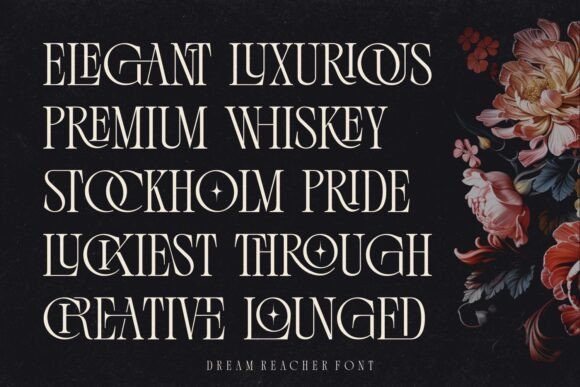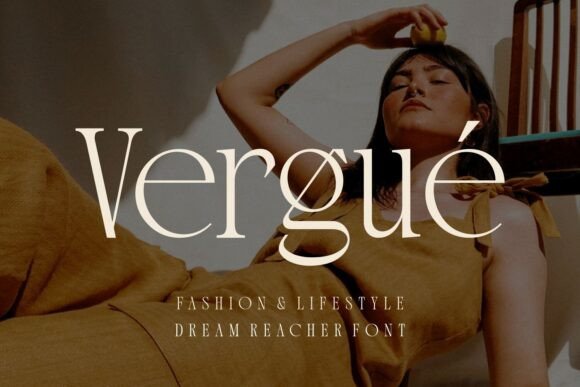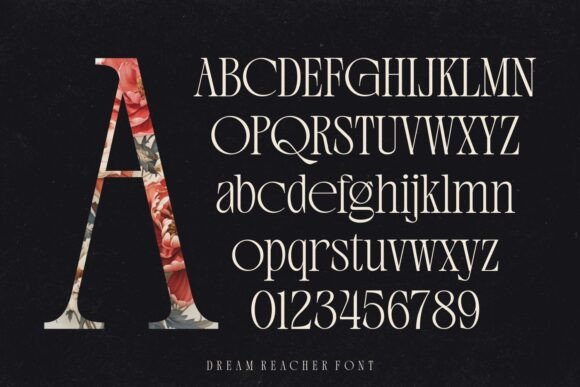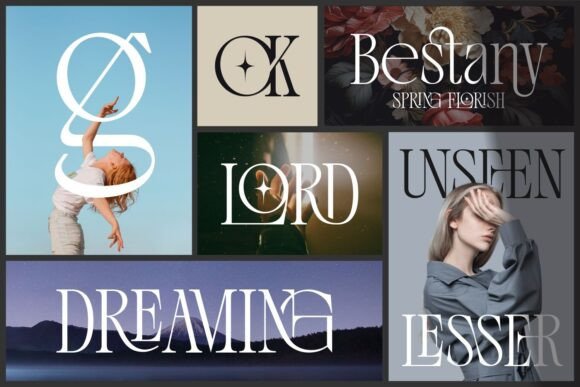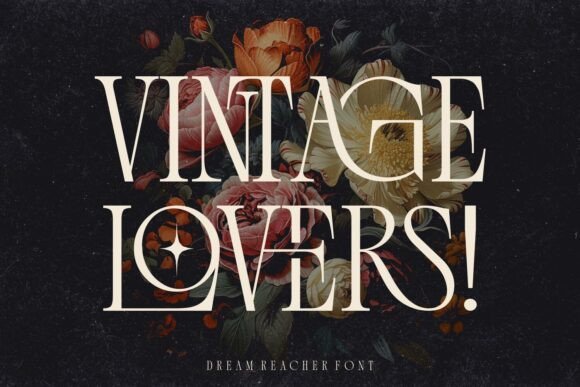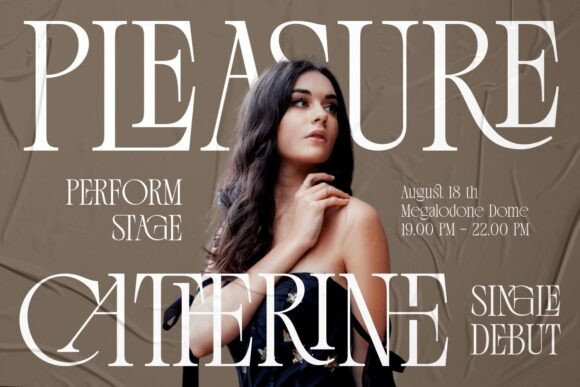
Dream Reacher Font: Elevate Your Designs with Elegance and Creativity
In the world of typography, fonts play a crucial role in conveying messages, expressing emotions, and creating visual identities. For designers and crafters, finding the perfect font that combines style, elegance, and uniqueness can be a daunting task. However, if you’re looking for a typeface that embodies creativity, sophistication, and harmony, look no further than the Dream Reacher Font. In this article, we’ll explore the features, benefits, and uses of this stunning font, and why it’s a must-have for any designer or crafter.
What is Dream Reacher Font?
Dream Reacher is a creative, stylish ligature serif font that has taken the design world by storm. Each letter is beautifully crafted with an elegant look that attracts a tall, minimalist, and slender shape. This font combines the elegance of a serif with a unique and decorative binding, creating a more harmonious and visually appealing look. The result is a typeface that exudes sophistication, creativity, and refinement.
Key Features of Dream Reacher Font
Dream Reacher Font boasts several key features that make it a standout in the world of typography. Some of its notable features include:
- Ligature Serif Font: Dream Reacher features a beautiful ligature serif design, which creates a unique and decorative binding between letters.
- Elegant and Slender Shape: Each letter is crafted with a tall, minimalist, and slender shape, giving it an elegant and refined look.
- Alternate and Ligature Features: This font comes with alternate and ligature features, allowing designers to create unique and creative combinations of letters.
- Perfect for Creative Designs: Dream Reacher Font is perfect for use in creative and artistic designs, such as logos, branding, headlines, titles, invitations, posters, and more.
Benefits of Using Dream Reacher Font
So, why should designers and crafters choose Dream Reacher Font for their projects? Here are some benefits of using this stunning font:
- Adds Elegance and Sophistication: Dream Reacher Font adds a touch of elegance and sophistication to any design, making it perfect for high-end branding and creative projects.
- Unique and Eye-Catching: The ligature serif design and alternate features of this font make it unique and eye-catching, grabbing the attention of viewers and leaving a lasting impression.
- Versatile and Flexible: Dream Reacher Font can be used in a variety of design projects, from logos and branding to headlines, titles, and more.
- Easy to Read and Understand: Despite its creative and decorative design, Dream Reacher Font is easy to read and understand, making it perfect for use in body text and other written content.
Use Cases for Dream Reacher Font
Dream Reacher Font is a versatile typeface that can be used in a wide range of design projects. Here are some use cases where this font shines:
- Logo Design: Use Dream Reacher Font to create stunning logos that exude elegance and sophistication.
- Branding and Identity: This font is perfect for creating brand identities that require a touch of creativity and refinement.
- Headlines and Titles: Dream Reacher Font is ideal for use in headlines, titles, and other display text, adding a touch of elegance and sophistication to any design.
- Invitations and Posters: Use this font to create beautiful invitations, posters, and other print materials that require a creative and eye-catching design.
| Font Name | Dream Reacher Font |
| Author | asenbayu |
In conclusion, Dream Reacher Font is a creative, stylish, and elegant ligature serif font that is perfect for designers and crafters looking to add a touch of sophistication and refinement to their designs. With its unique features, benefits, and versatility, this font is a must-have for any design project that requires a high-end look and feel. Whether you’re creating logos, branding, headlines, titles, or other design materials, Dream Reacher Font is sure to impress.